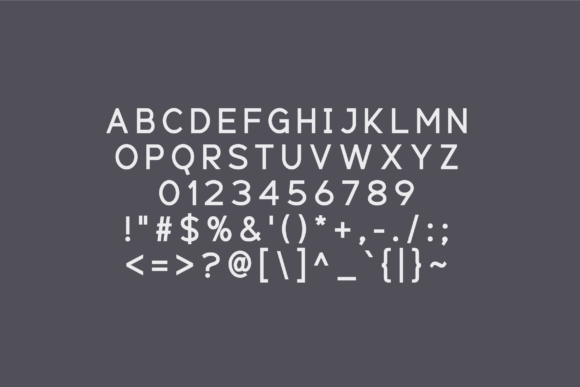
Discover the Charm of Alteratina: A Timeless Sans Serif Typeface
In the world of typography, fonts play a crucial role in conveying messages, expressing emotions, and creating lasting impressions. Among the numerous typefaces available, Alteratina stands out as a contemporary yet timeless sans serif font that embodies elegance and sophistication. With its impressive array of upper characters, numerical digits, punctuation, and symbols, Alteratina is the perfect companion for creative endeavors.
Key Features of Alteratina Font
- Upper Characters: Alteratina boasts an extensive collection of upper characters, providing a wide range of options for creative expression.
- Numerical Digits: The font includes numerical digits from 0 to 9, allowing for precise and stylish representation of numbers.
- Punctuation and Symbols: Alteratina’s diverse collection of punctuation and symbols ensures that you have everything you need to create visually appealing and effective designs.
The Versatility of Alteratina
One of the standout features of Alteratina is its incredible versatility. This font effortlessly adapts to various applications, making it an ideal choice for:
- Magnetic Logos: Create stunning logos that capture the essence of your brand with Alteratina’s elegant and high-end design.
- Enchanting Wedding Invitations: Add a touch of sophistication and romance to your wedding invitations with Alteratina’s beautiful typography.
- Inspiring Quotes: Use Alteratina to create visually appealing quotes that motivate and inspire your audience.
- Captivating Advertisements: Make your advertisements stand out with Alteratina’s unique and stylish font, ensuring that your message is conveyed effectively.
- High-Impact Prints: Elevate your magazine prints with Alteratina’s impressive typography, making your content more engaging and readable.
Typographic Excellence
Alteratina’s design is rooted in typographic excellence, ensuring that it meets the highest standards of legibility, readability, and aesthetic appeal. The font’s sans serif design provides a clean and modern look, making it perfect for a wide range of applications.
Design Inspiration
The inspiration behind Alteratina’s design lies in its ability to blend contemporary and timeless elements. The font’s elegant and high-end design makes it perfect for creative projects that require a touch of sophistication.
The Benefits of Using Alteratina
- Elegant and Sophisticated: Alteratina adds a touch of elegance and sophistication to your designs, making them more visually appealing.
- Versatile: The font’s versatility ensures that it can be used in a wide range of applications, from logos to magazine prints.
- High-Quality: Alteratina’s high-quality design ensures that your designs look professional and polished.
- Easy to Read: The font’s clean and modern design makes it easy to read, ensuring that your message is conveyed effectively.
Tips for Using Alteratina
- Experiment with Font Sizes: Alteratina’s elegant design looks great in various font sizes, so experiment to find the perfect size for your project.
- Pair with Other Fonts: Try pairing Alteratina with other fonts to create visually appealing and unique designs.
- Use for Headings and Titles: Alteratina’s elegant design makes it perfect for headings and titles, adding a touch of sophistication to your designs.
In conclusion, Alteratina is a timeless sans serif typeface that offers elegance, sophistication, and versatility. With its impressive array of upper characters, numerical digits, punctuation, and symbols, Alteratina is the perfect companion for creative endeavors. Whether you’re designing logos, wedding invitations, or magazine prints, Alteratina is sure to exceed your expectations.
Final Thoughts
Alteratina is more than just a font – it’s a design solution that can elevate your creative projects to new heights. With its unique blend of contemporary and timeless elements, Alteratina is sure to become a staple in your design toolkit.